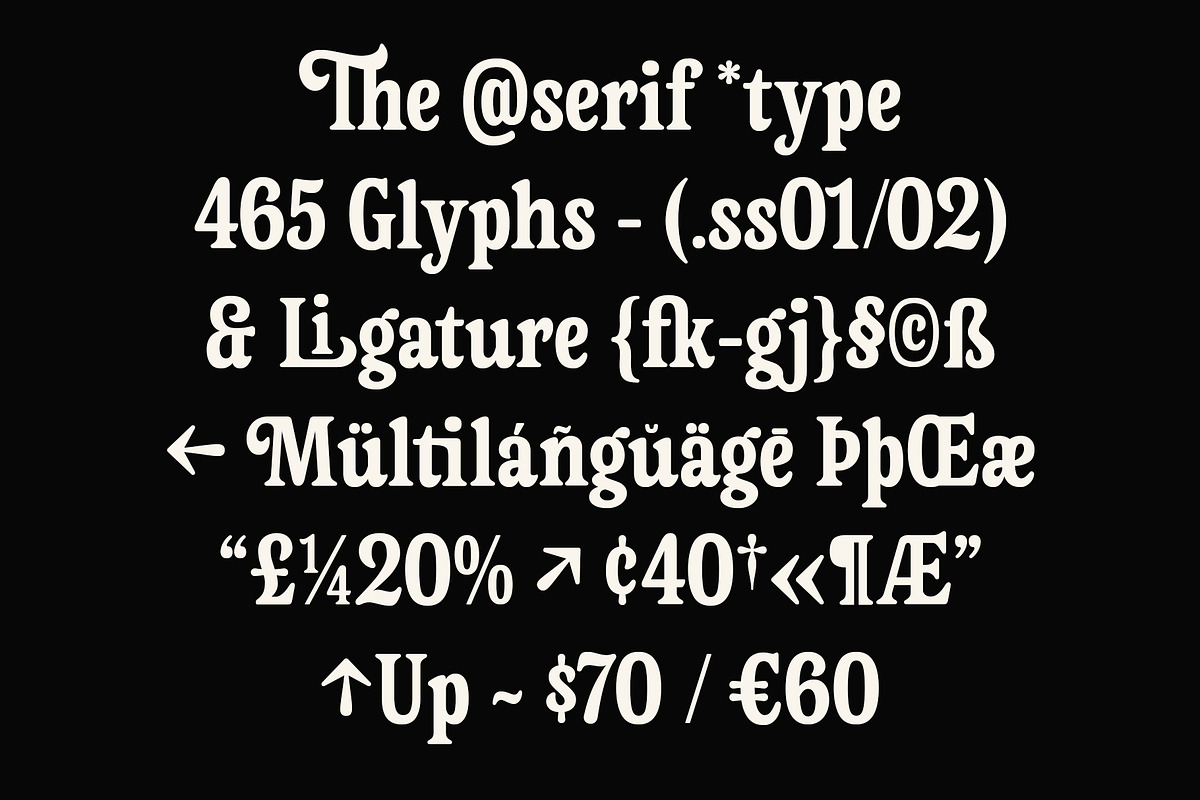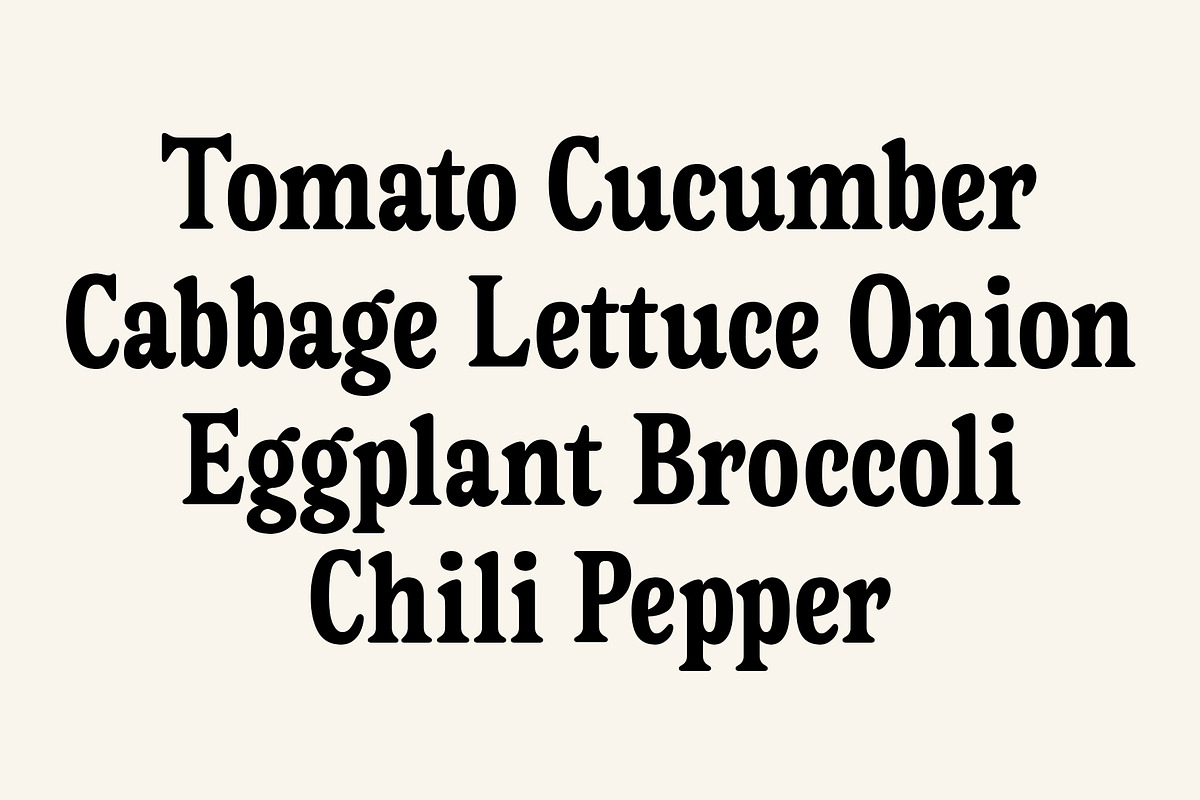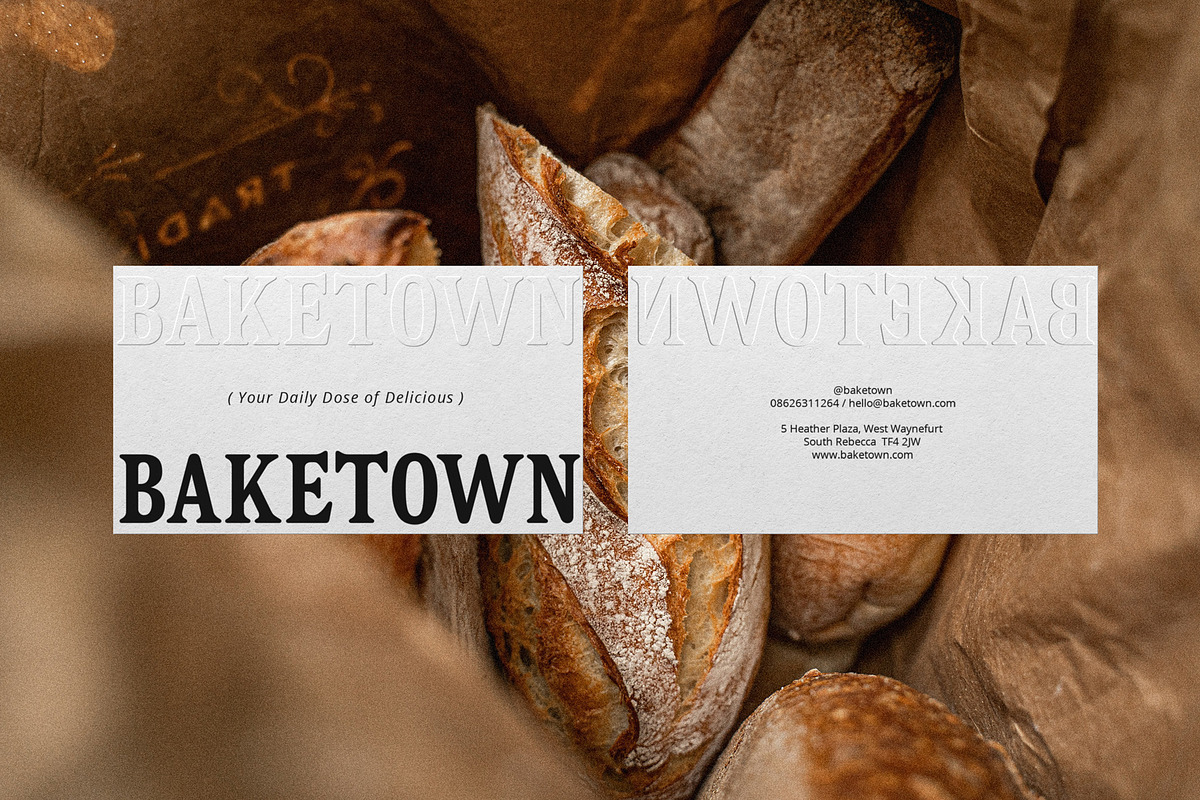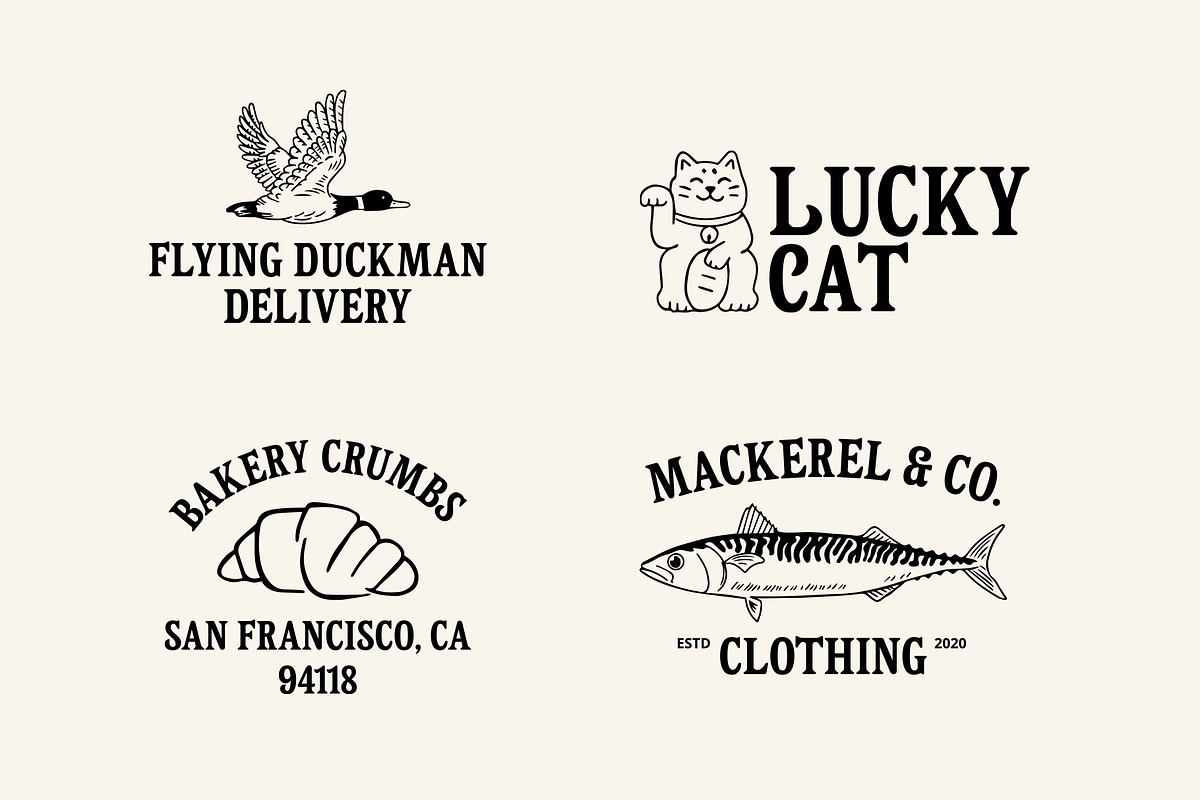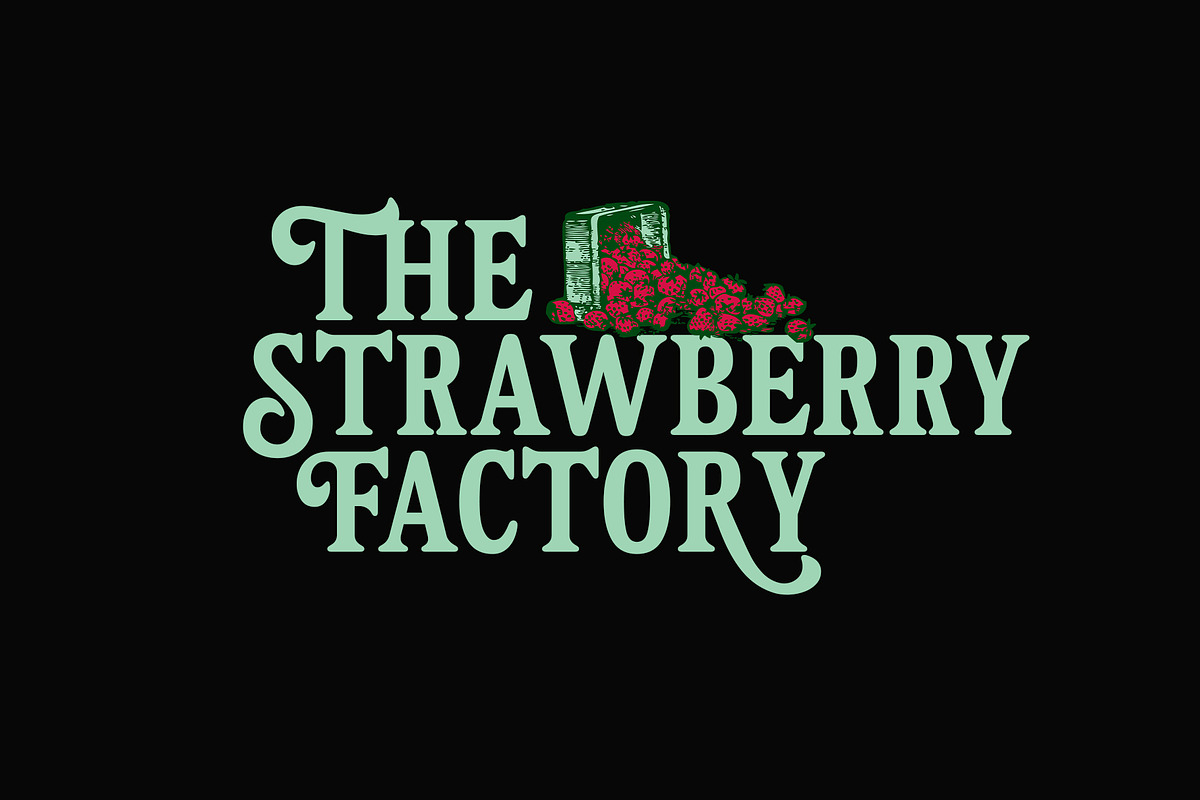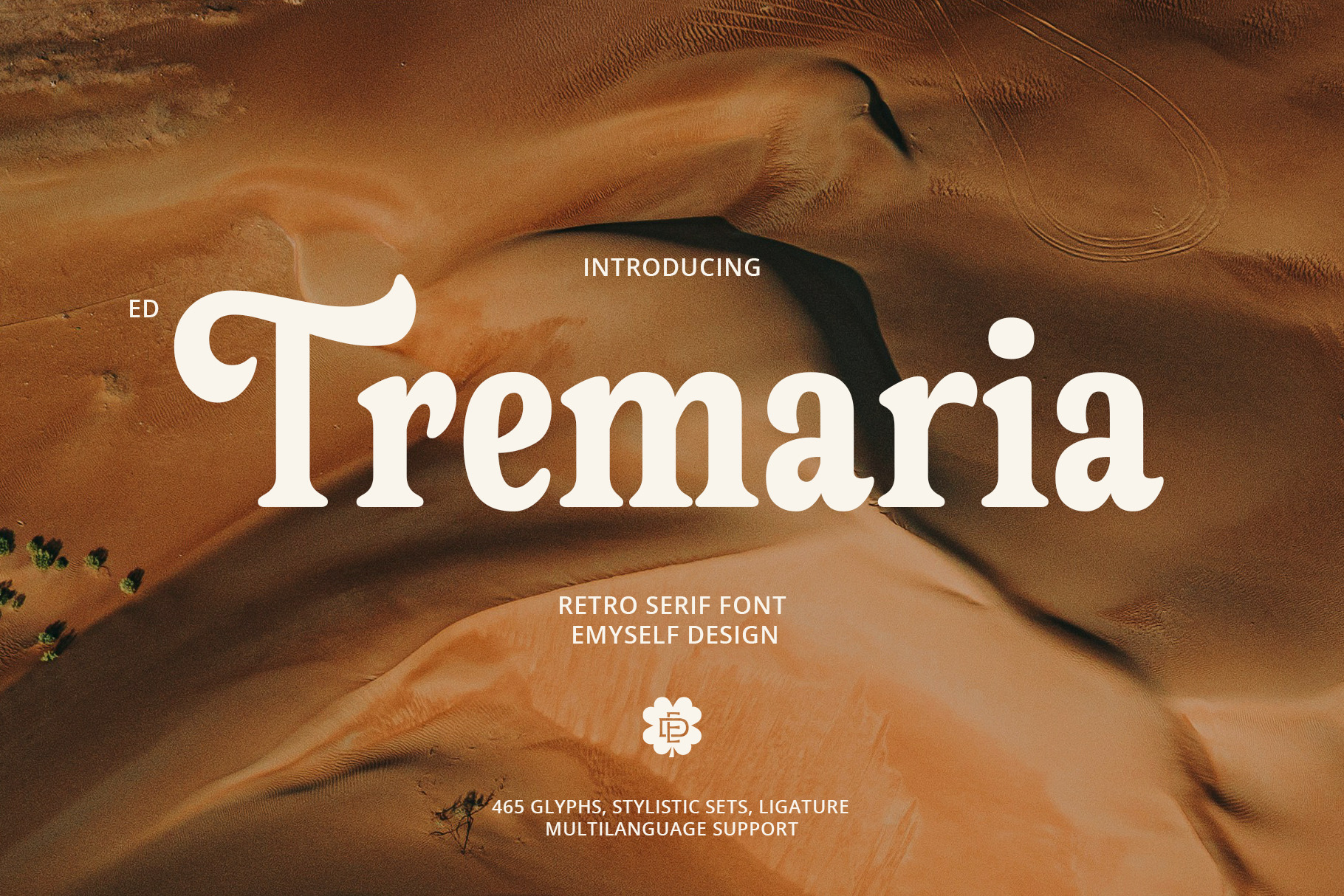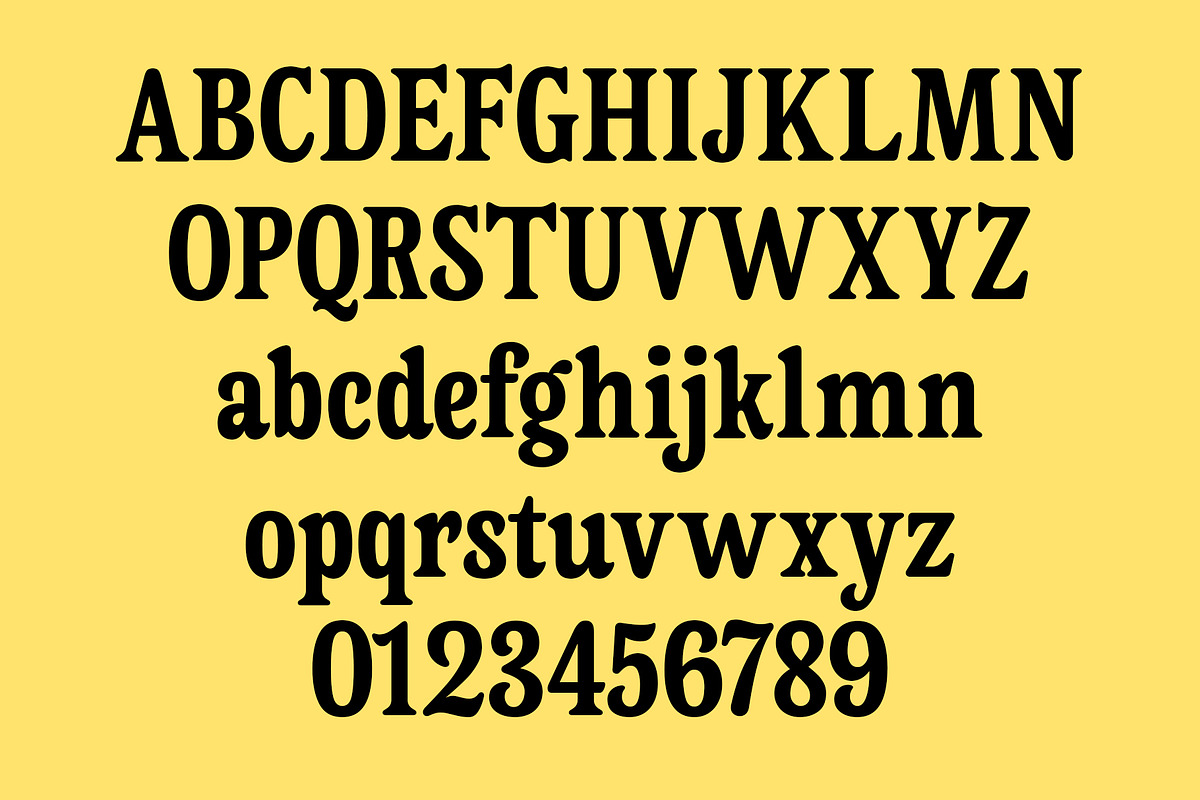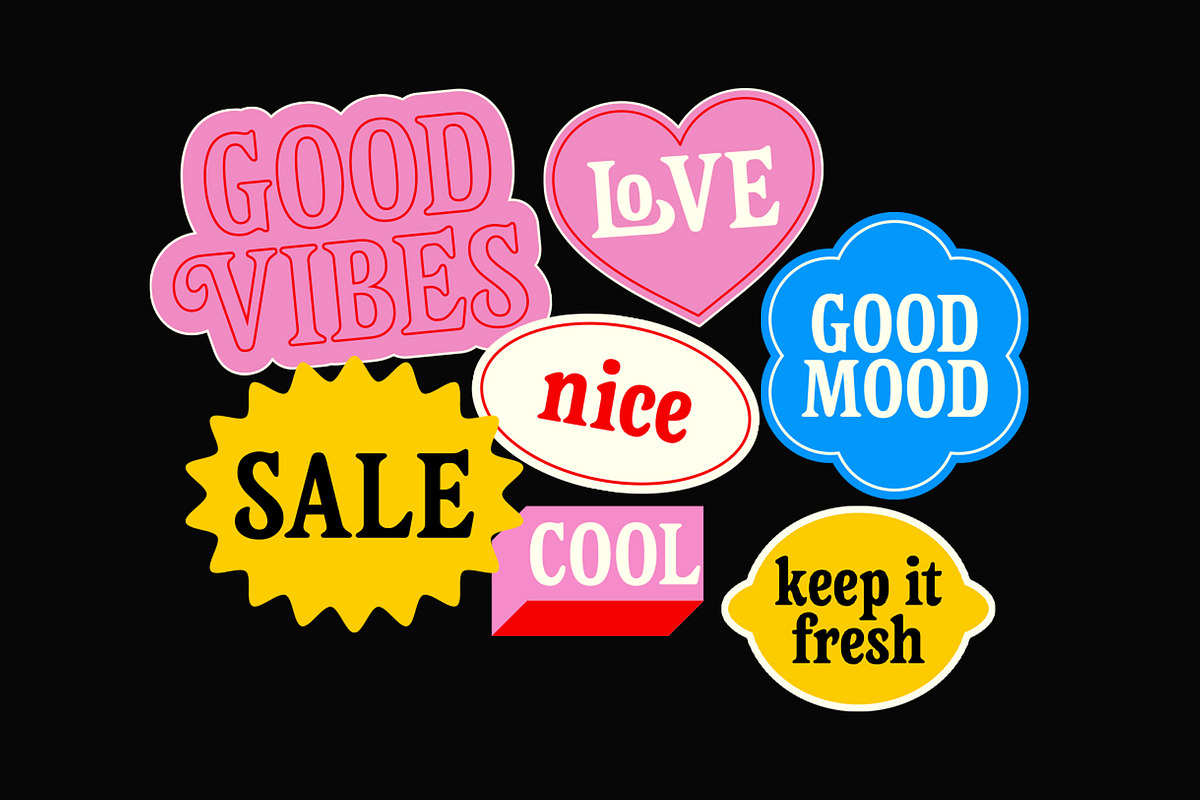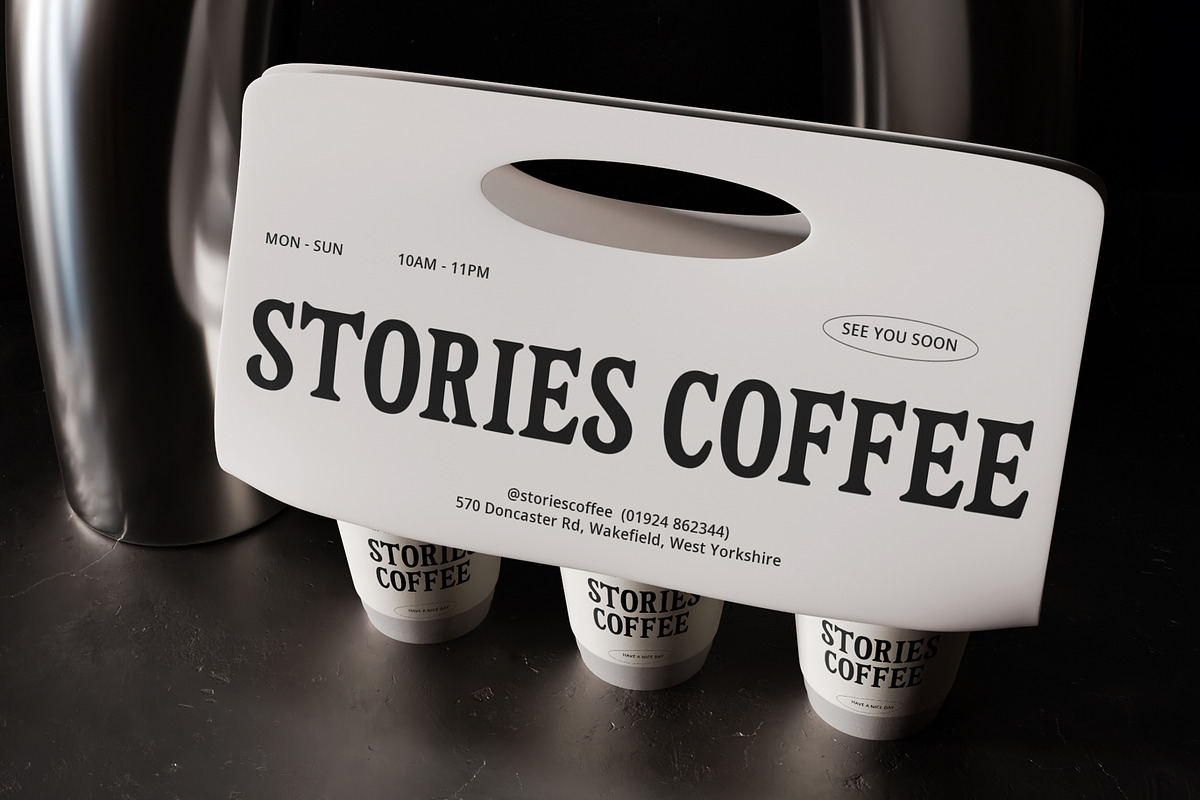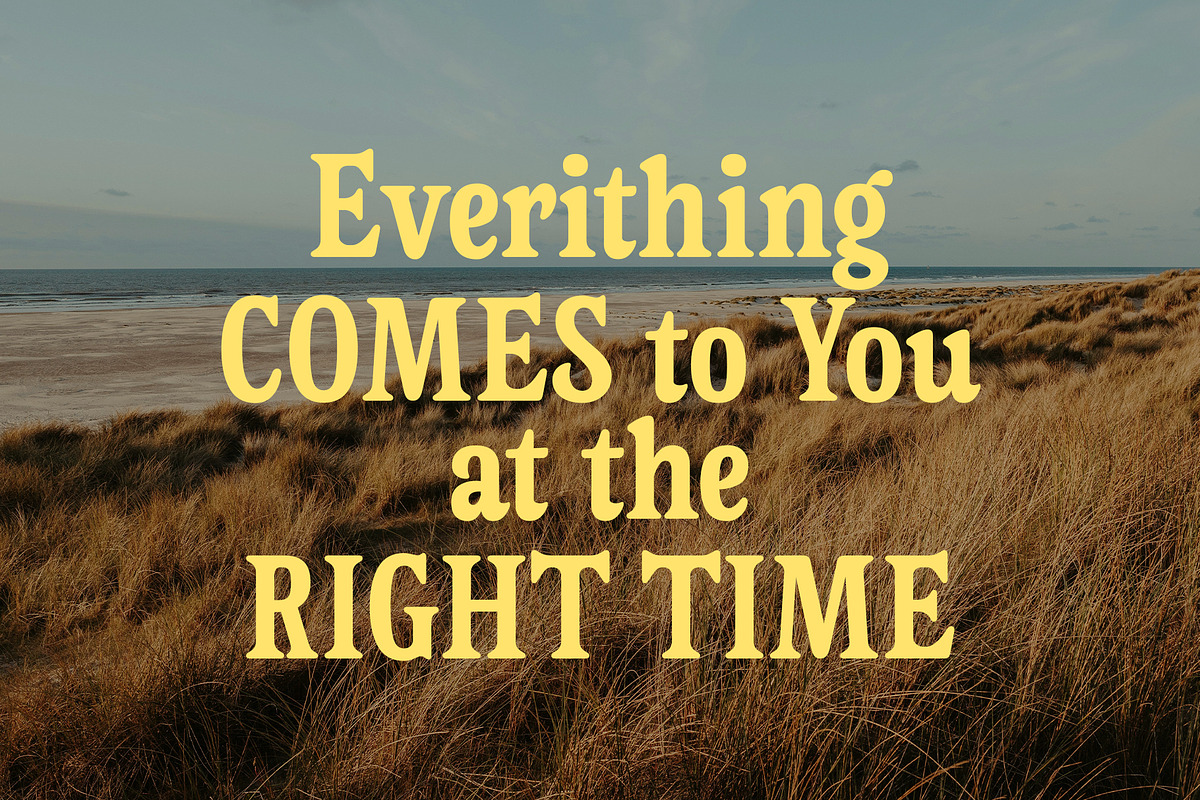
ED Tremaria - Retro Serif Font
Tremaria is a retro serif font that has a classic feel and is flexible in use. Inspired by the aesthetics of iconic vintage labels, Tremaria combines the charm of classic design with a modern touch. Tremaria features soft rounded toes, giving it a friendly and approachable feel. This uniqueness makes Tremaria not only ideal for retro-themed designs, but also very flexible for various design purposes.
This font is also equipped with an attractive stylistic set and ligature, allowing you to create unique and stunning typography. This font is perfect for your creative projects such as Logotype, printed quotes, invitations, cards, headers, letterheads, Apparel, Web design, magazines, books, etc.
- Total Glyph: 465
- Punctuation and Marks
- Stylistic set & Ligatures